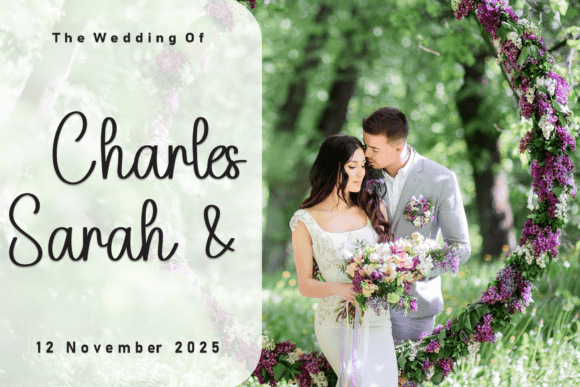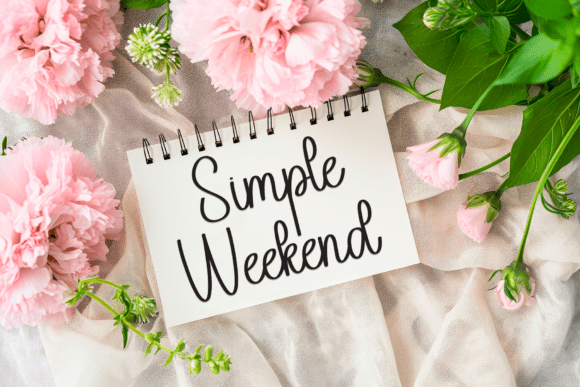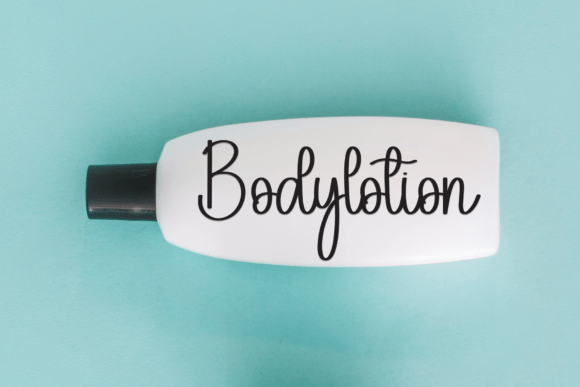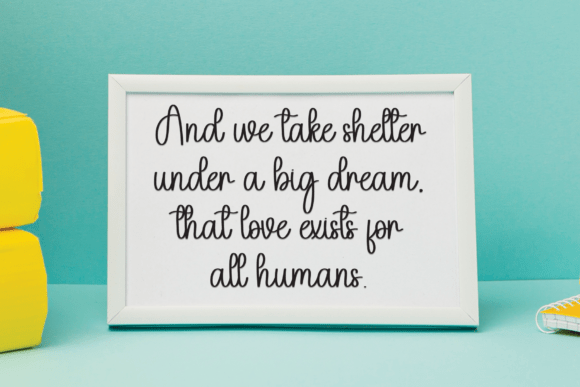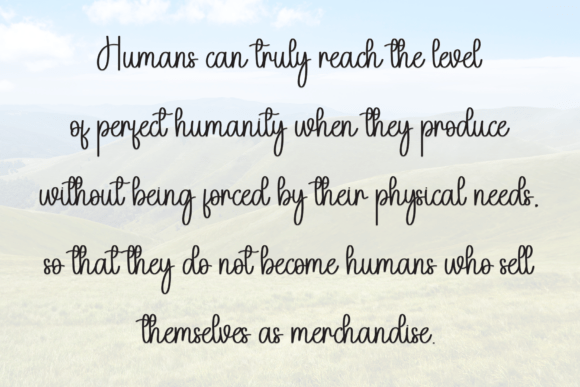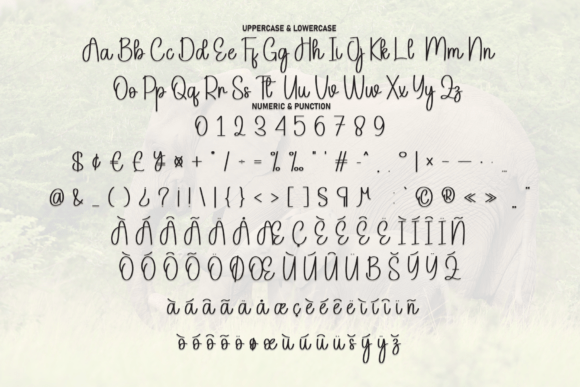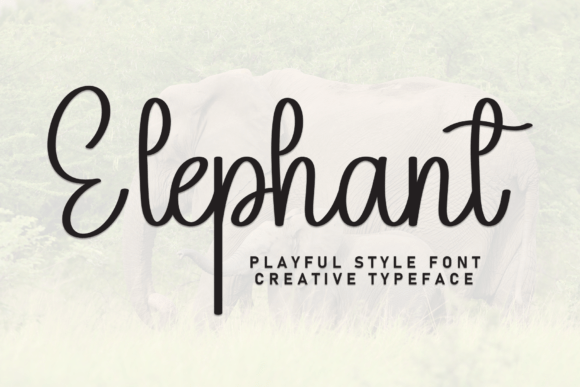
Introducing Elephant Font: The Playful and Stylish Handwritten Font for Modern Designs
Are you looking for a font that adds a touch of friendliness and flair to your designs? Look no further than Elephant Font, a playful and stylish handwritten font that’s perfect for quotes, branding, kids’ projects, and creative designs. With its modern, casual feel and tall, rounded letters, Elephant Font is sure to elevate your designs and make them stand out.
What Makes Elephant Font Special?
Elephant Font is a unique and versatile font that’s designed to bring a sense of fun and playfulness to your designs. Its clean strokes and rounded letters give it a friendly and approachable feel, making it perfect for designs that need a touch of whimsy. Whether you’re creating a quote, a brand identity, or a kids’ project, Elephant Font is the perfect choice.
Key Features of Elephant Font
- Playful and Stylish: Elephant Font has a modern, casual feel that’s perfect for designs that need a touch of friendliness and flair.
- Tall and Rounded Letters: The font features tall, rounded letters that give it a unique and stylish look.
- Clean Strokes: The clean strokes of Elephant Font make it easy to read and perfect for designs that need a clear and concise message.
- Versatile: Elephant Font is perfect for a wide range of designs, including quotes, branding, kids’ projects, and creative designs.
Use Cases for Elephant Font
Elephant Font is perfect for a wide range of designs, including:
- Quotes: Add a touch of friendliness and flair to your quotes with Elephant Font.
- Branding: Use Elephant Font to create a unique and stylish brand identity that’s perfect for modern businesses.
- Kids’ Projects: Elephant Font is perfect for kids’ projects, including posters, flyers, and activity sheets.
- Creative Designs: Add a touch of whimsy to your creative designs, including illustrations, graphics, and more.
Why Designers and Crafters Love Elephant Font
Designers and crafters love Elephant Font for its unique and stylish look. The font is easy to read and perfect for designs that need a clear and concise message. Plus, its playful and stylish feel makes it perfect for designs that need a touch of friendliness and flair.
Tips for Using Elephant Font
Here are some tips for using Elephant Font in your designs:
- Use it for Headlines: Elephant Font is perfect for headlines and titles, where its playful and stylish feel can really shine.
- Pair it with Other Fonts: Pair Elephant Font with other fonts to create a unique and stylish look.
- Experiment with Colors: Experiment with different colors to find the perfect look for your design.
Elephant Font is a playful and stylish handwritten font that’s perfect for modern designs. With its tall, rounded letters and clean strokes, it’s ideal for quotes, branding, kids’ projects, and creative designs that need a touch of friendliness and flair. Whether you’re a designer or crafter, Elephant Font is the perfect choice for your next project.